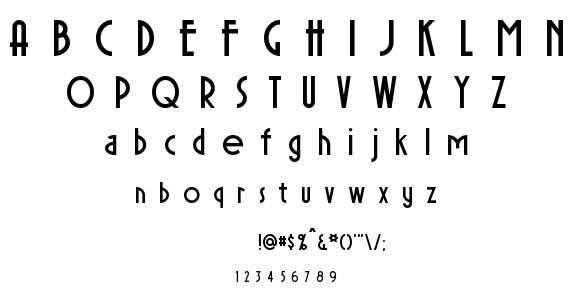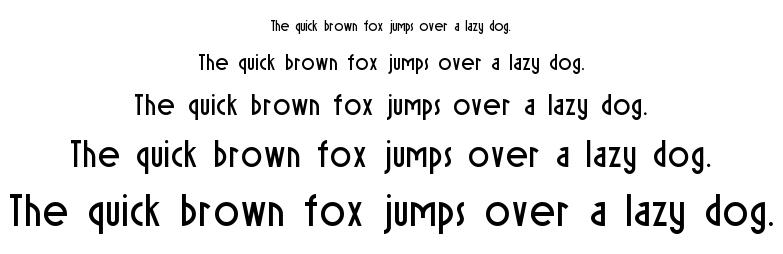
War… war never changes. This typeface is basically my version of one of the more popular art-deco styles, but is most heavily based on the Sierra Madre casino’s logo from Fallout: New Vegas: Dead Money.